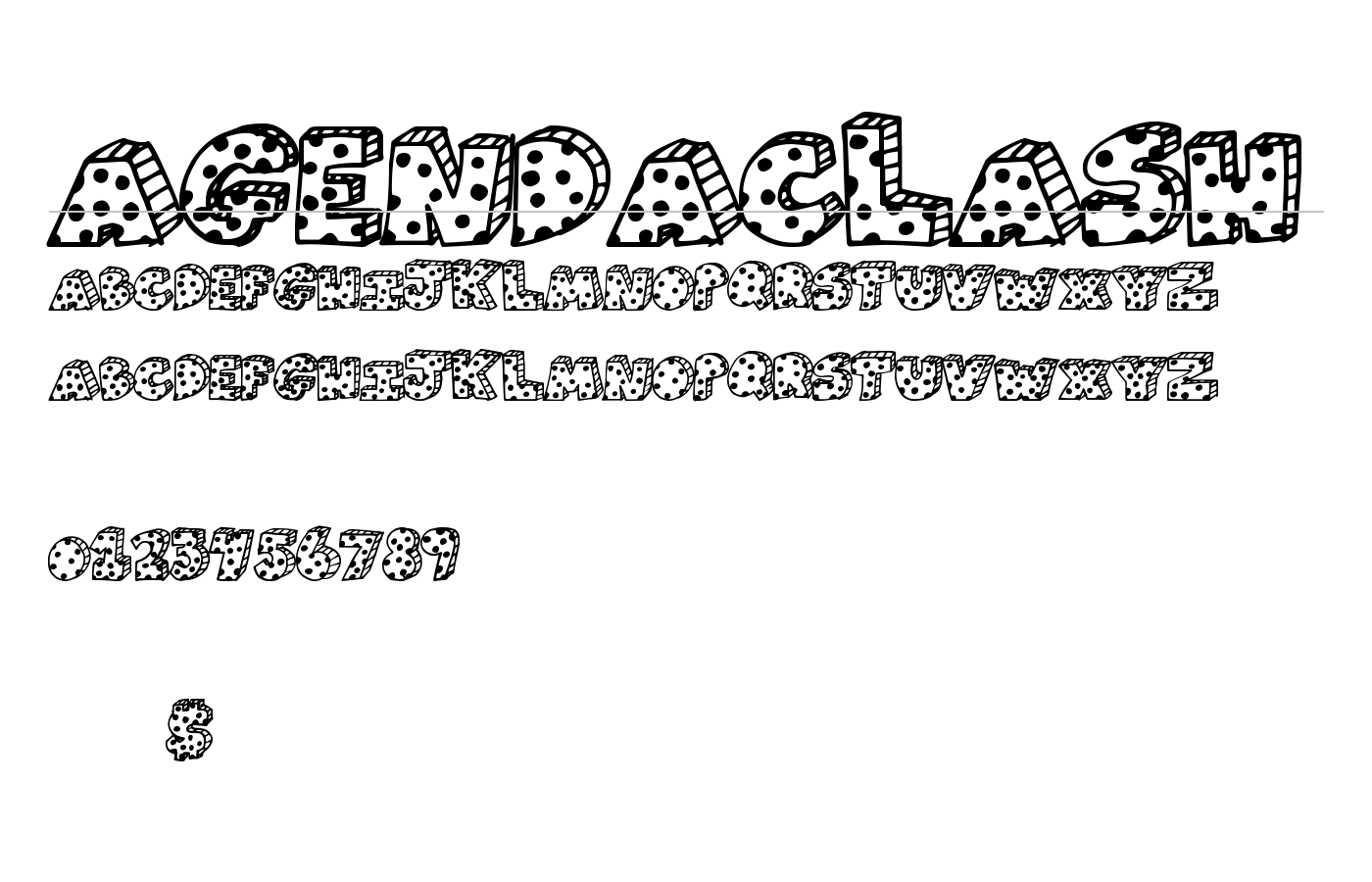
AgendaClash is a bold, playful display font with chunky, geometric letterforms covered in whimsical polka dots. Its three-dimensional style and lively patterns give it a fun, energetic vibe, making it perfect for eye-catching headlines, party invitations, and creative branding that seeks a quirky, informal feel. This font works best where you want to make a memorable, joyful impression with a strong visual impact.
AgendaClash Font
About AgendaClash Font